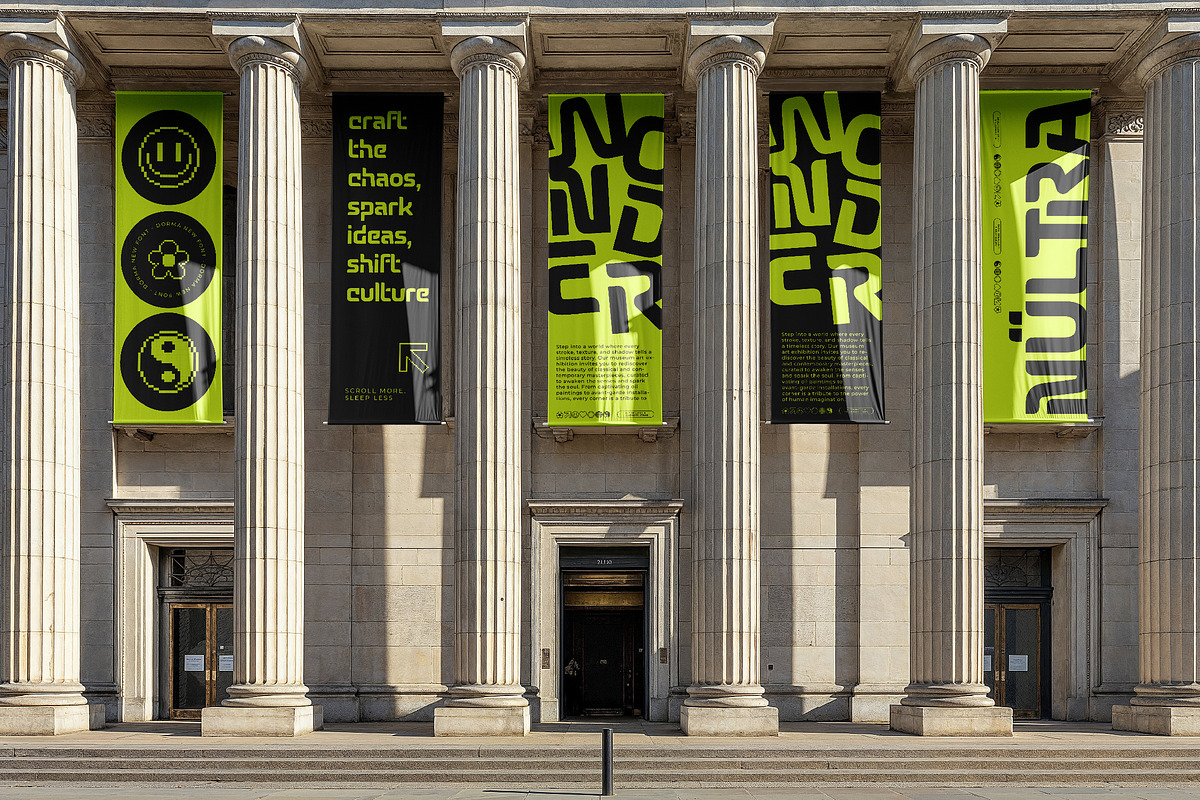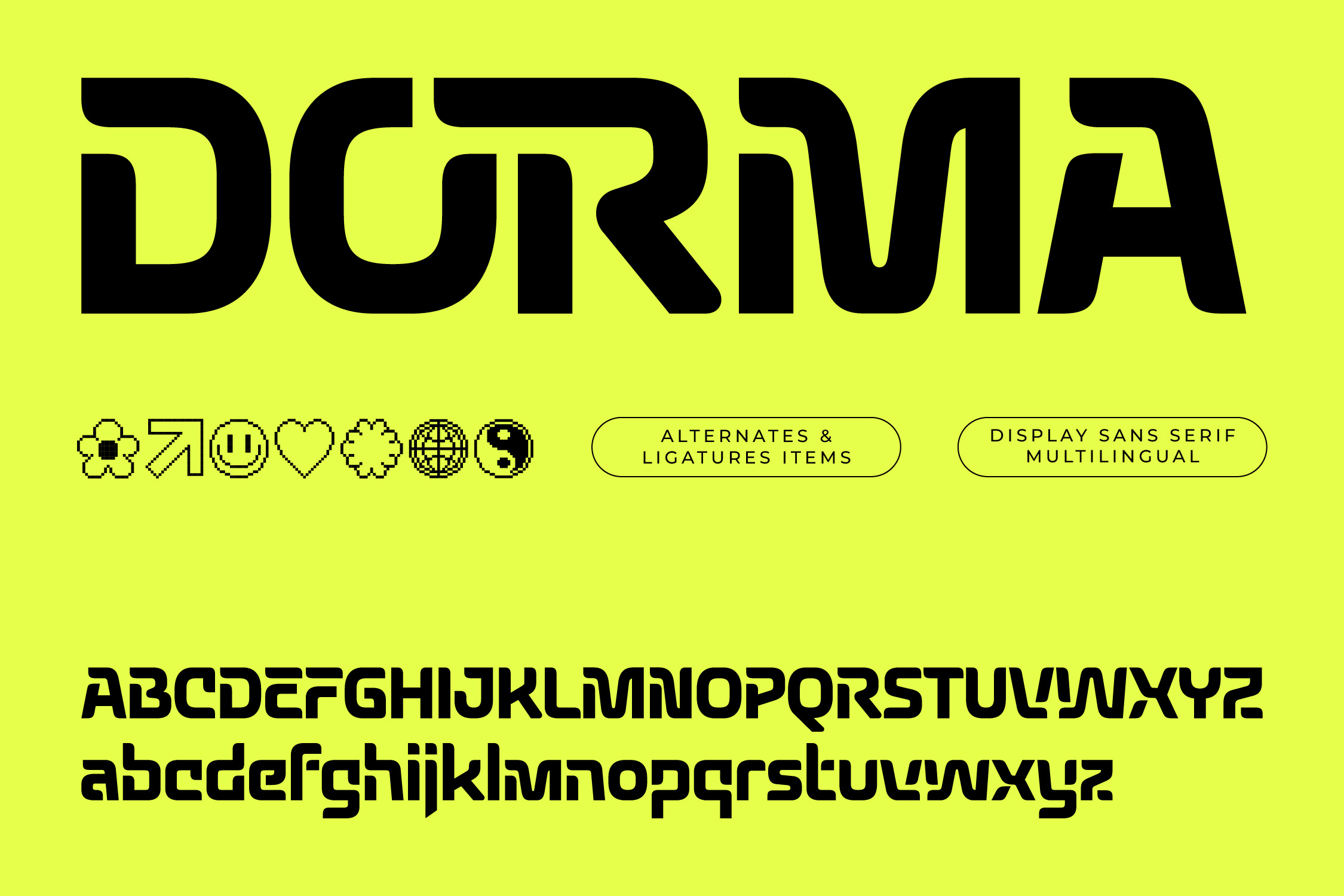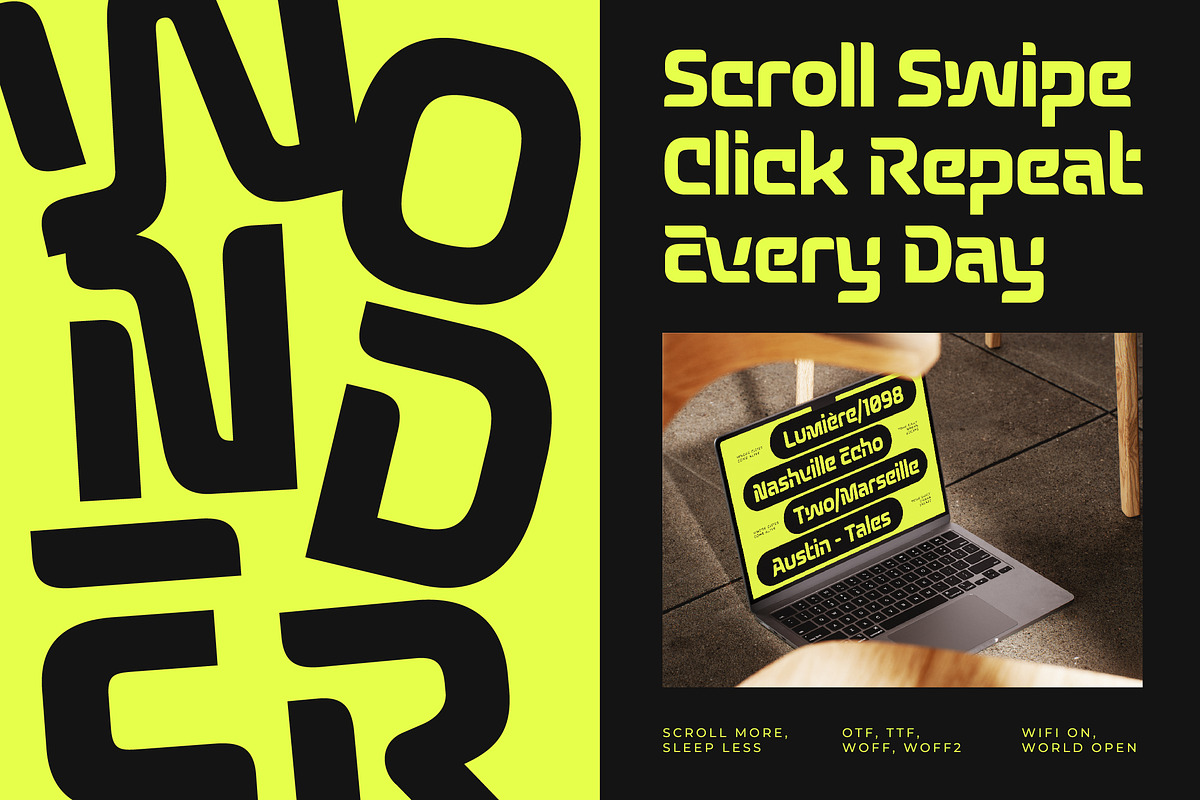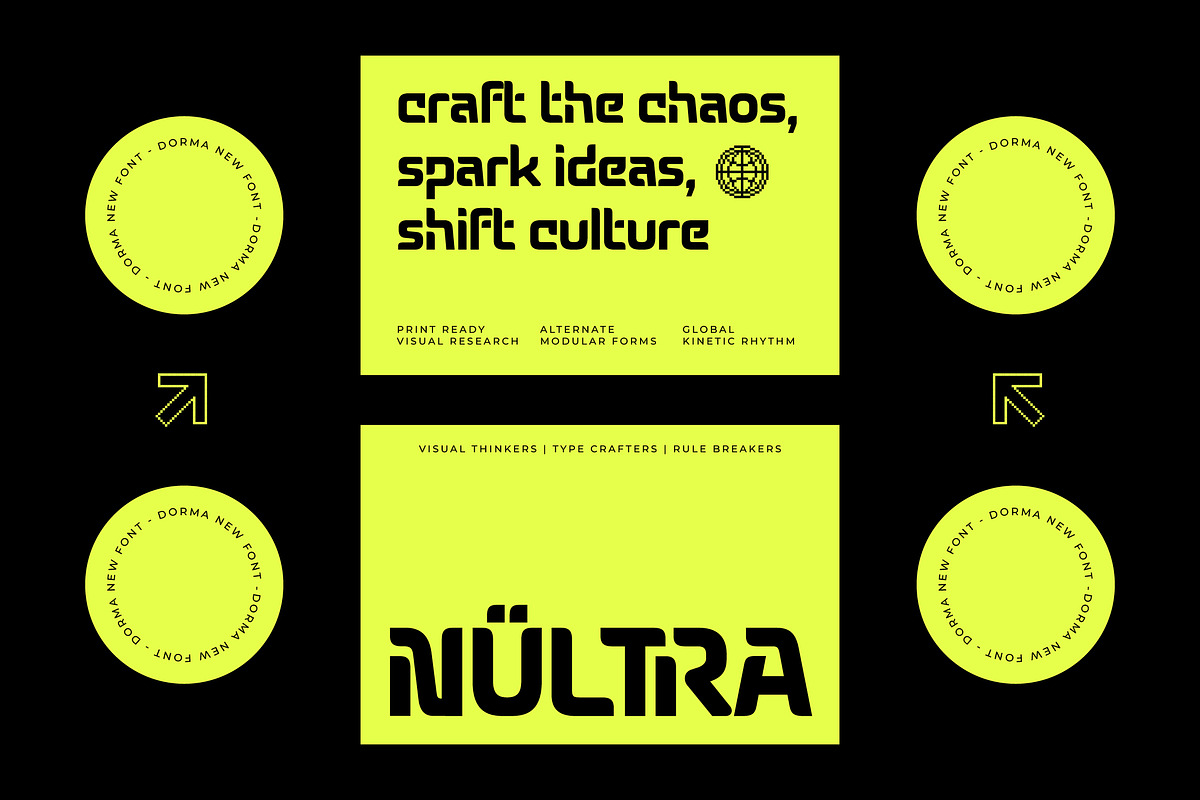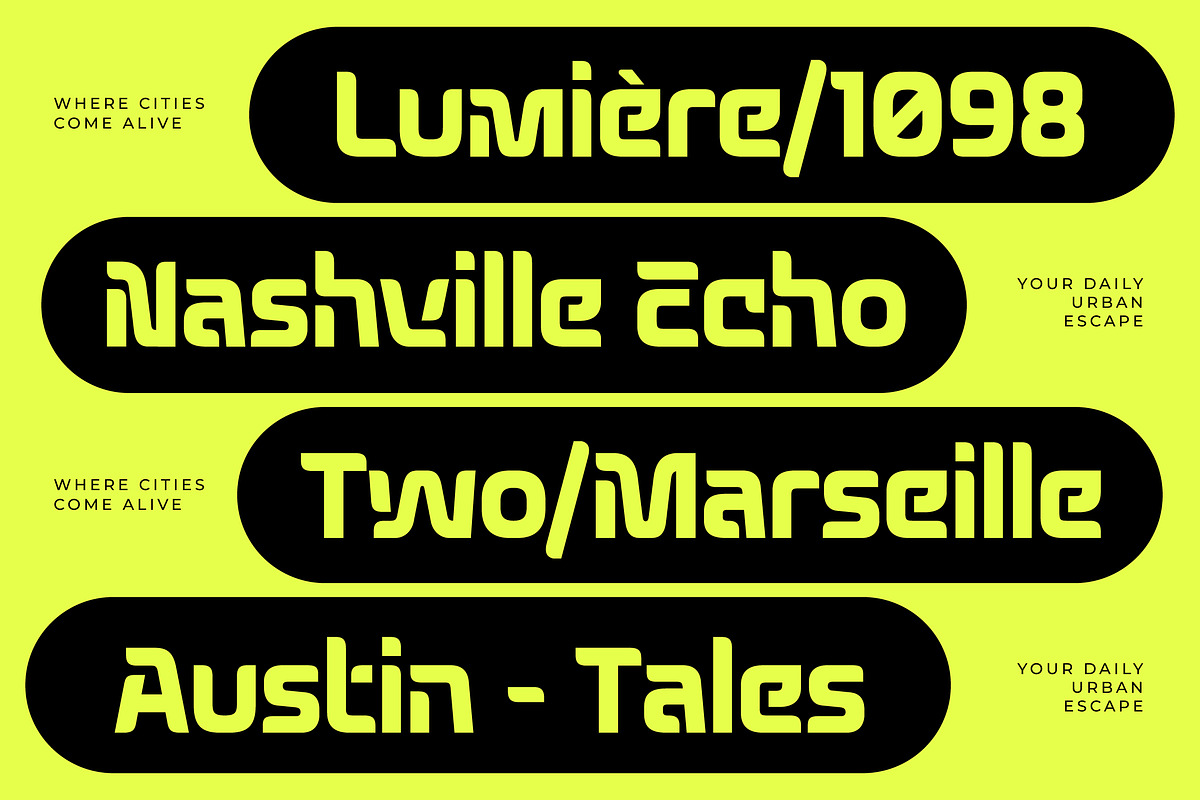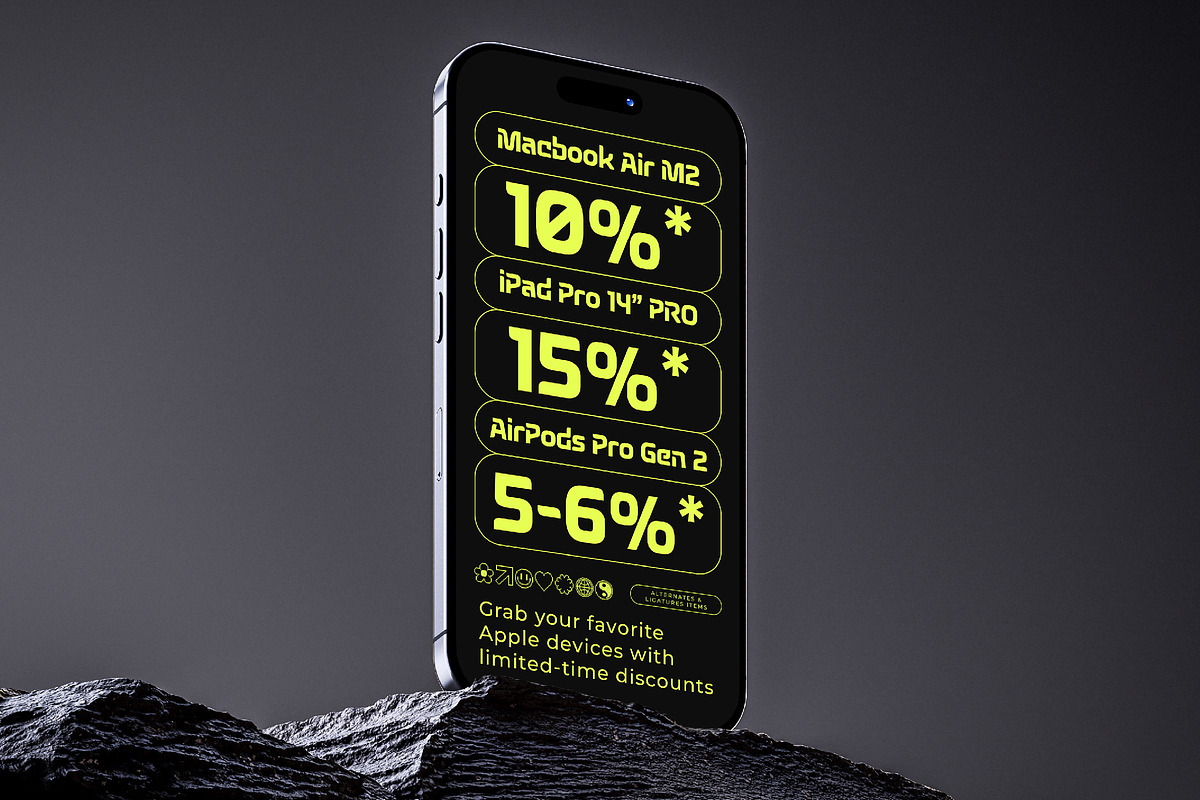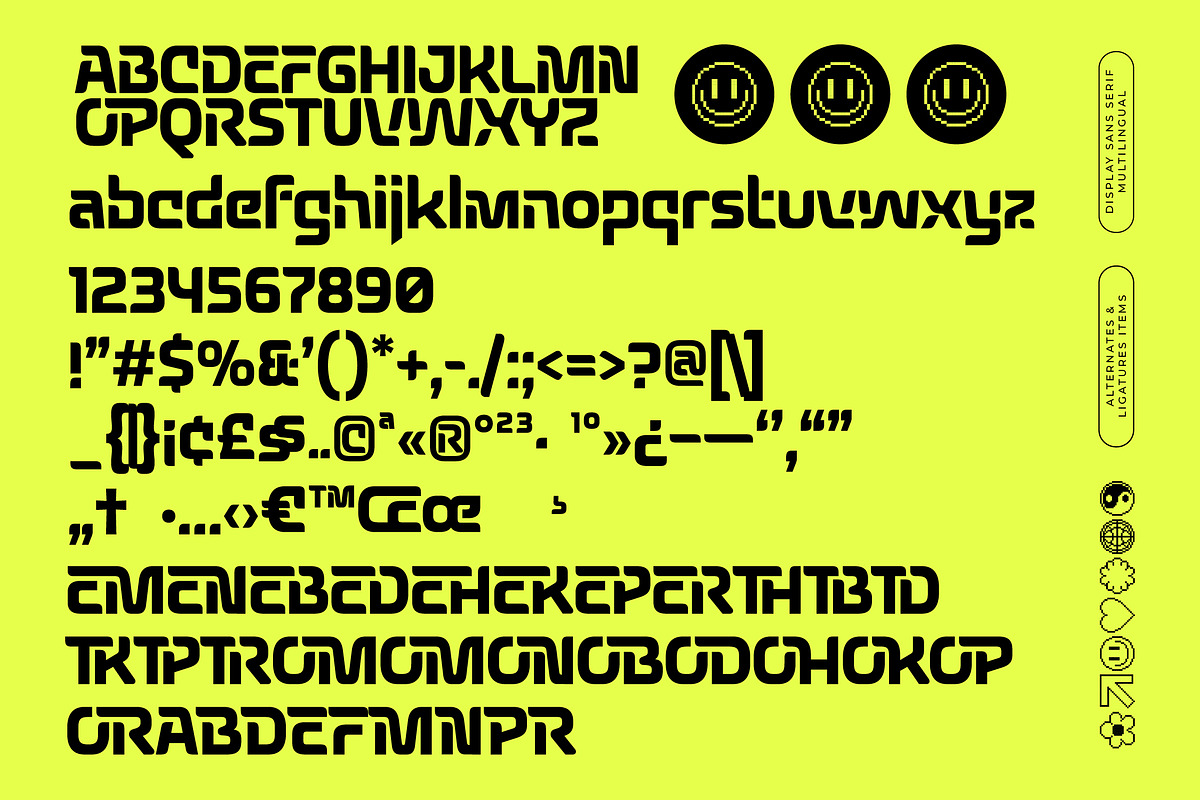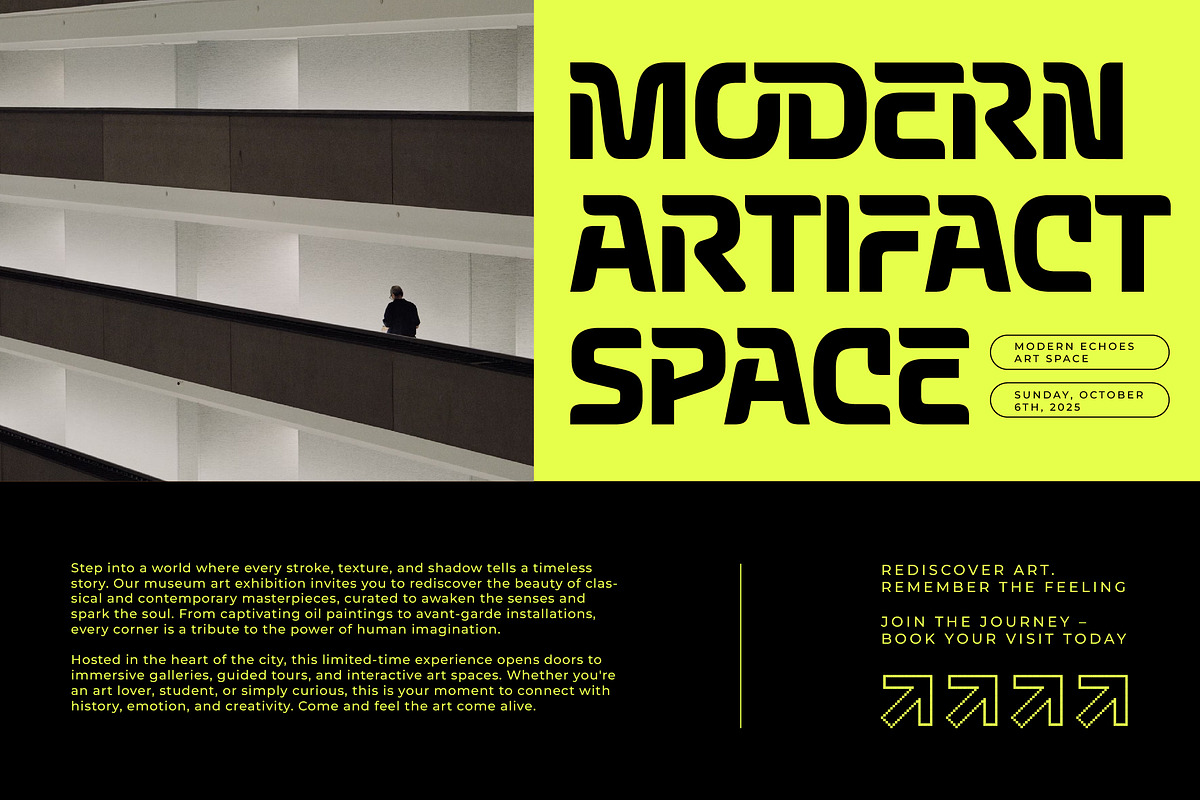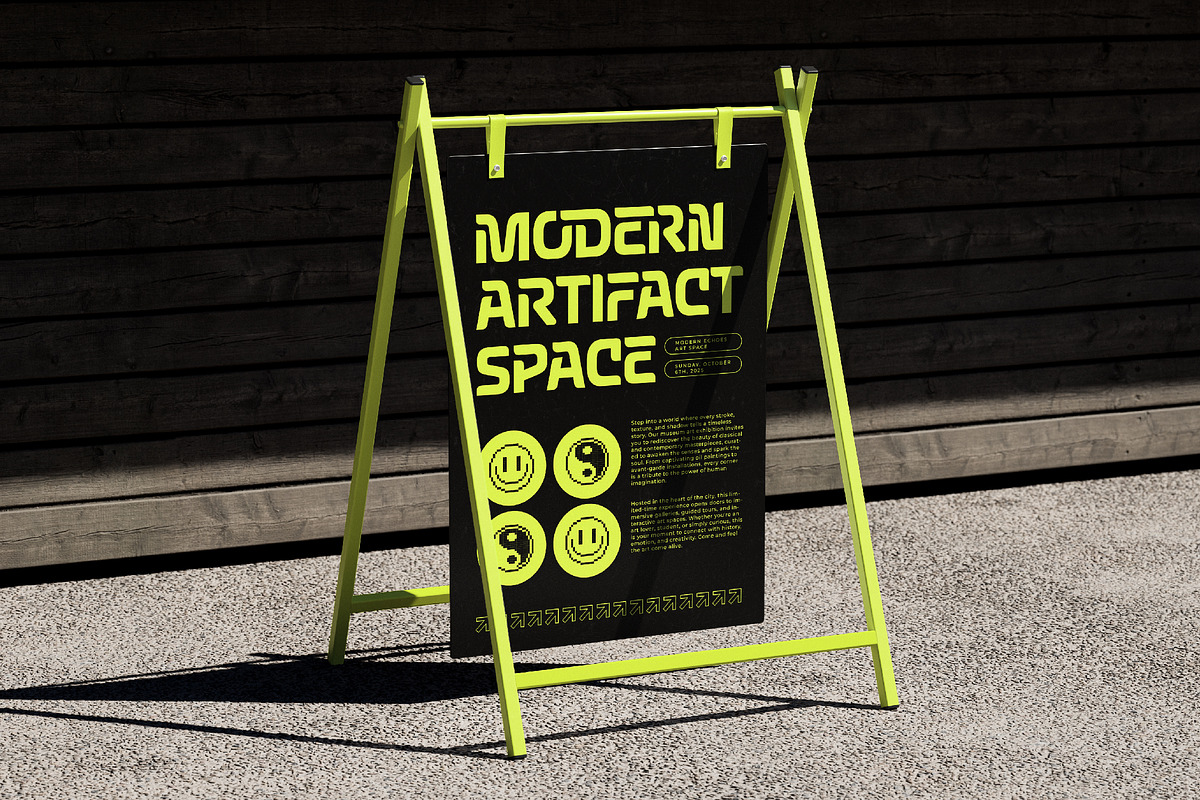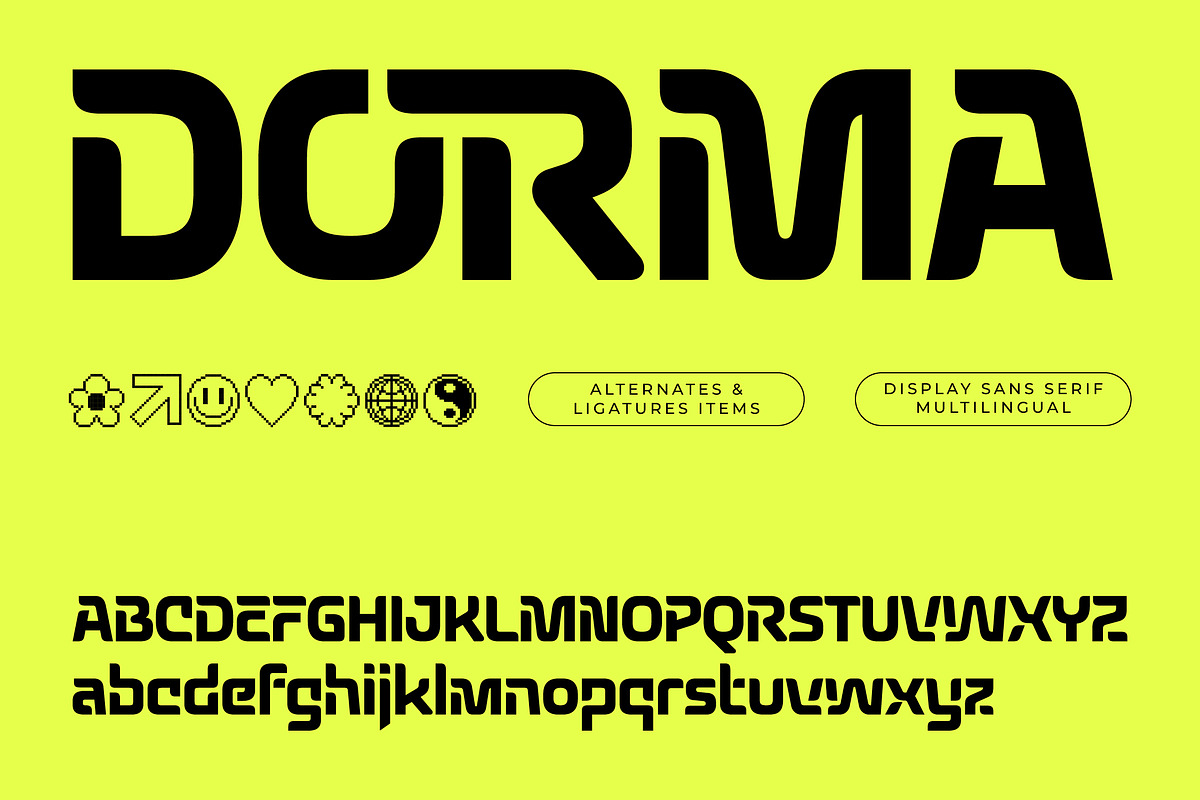
Dorma Display Sans Serif Fonts
Dorma Display Font
Dorma display font is a unique, modern luxury font with a luxury, elegant, aesthetic, and geometric style. It is a display font perfect for branding projects, logos, social media posts, product packaging, labels, etc.